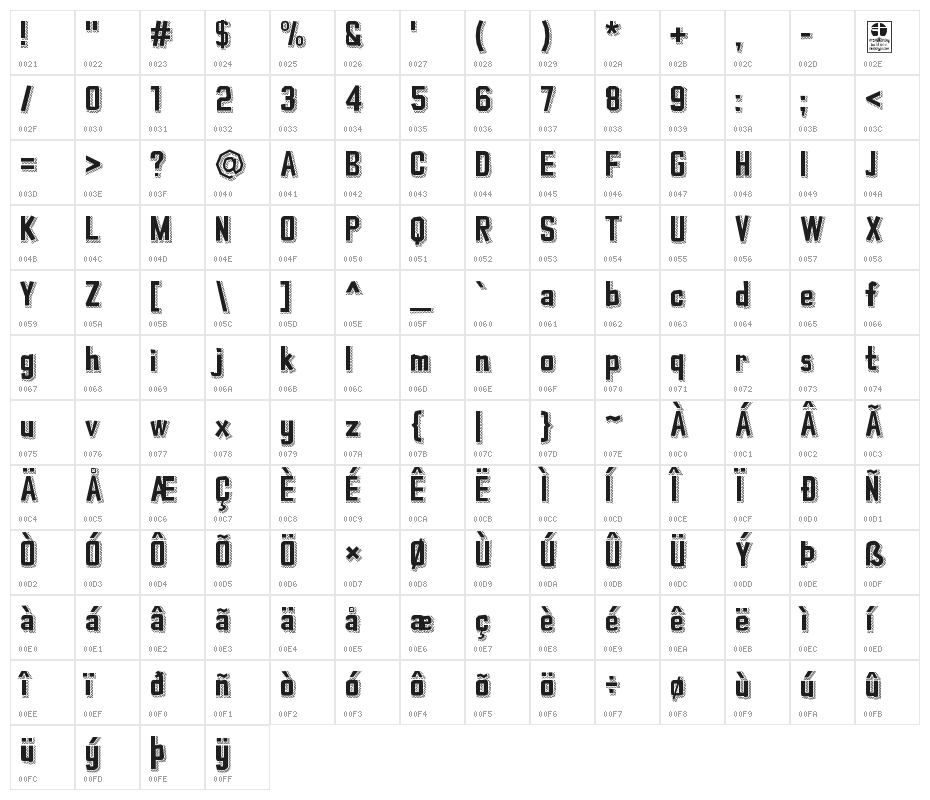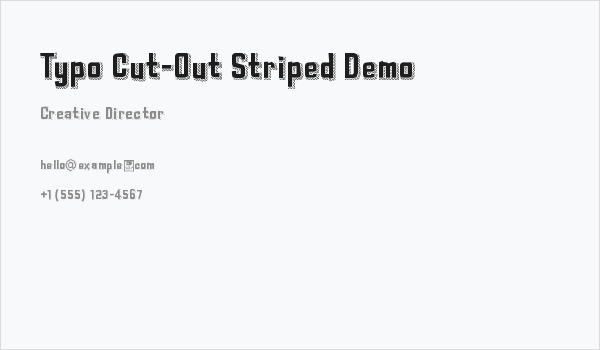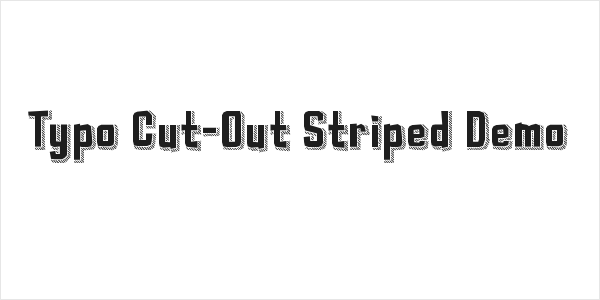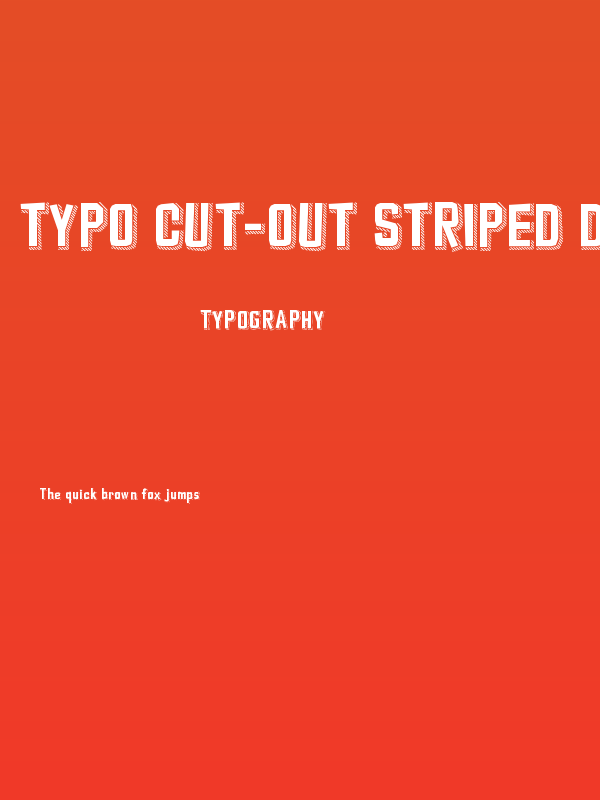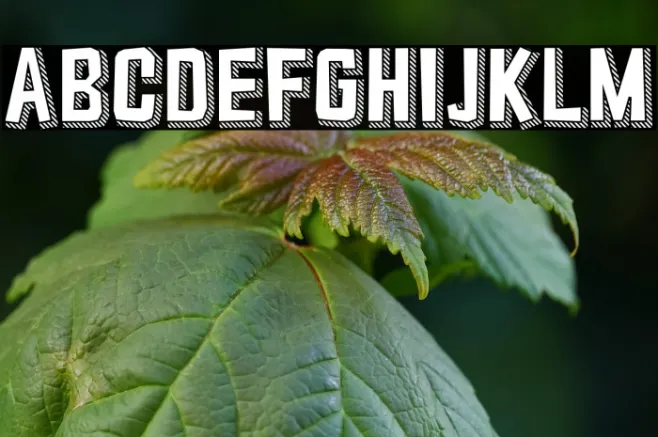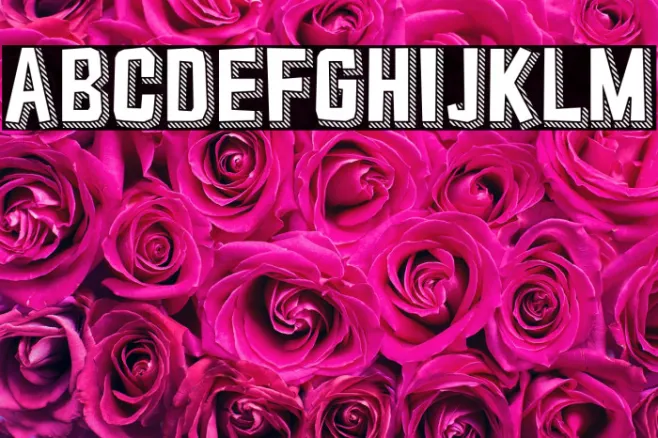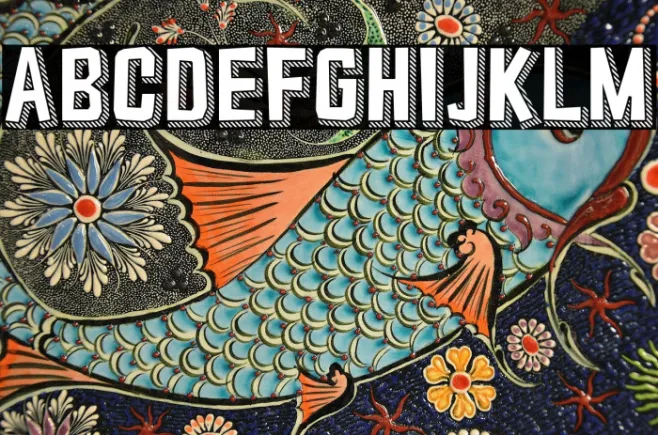
Typo Cut-Out Striped Demo Font
Typo Cut-Out Striped Demo Description
This font features a bold, cut-out style with a distinctive striped pattern that gives it a dynamic and eye-catching appearance. The uppercase and lowercase letters are designed with a consistent width, providing a uniform look across the alphabet. The numbers and special characters maintain the same bold and striped aesthetic, ensuring cohesion throughout. The font's playful and modern design makes it suitable for projects that require a standout, decorative typeface. Its unique style is perfect for capturing attention and adding a creative touch to any design.
| Proposed Projects | Ideal for posters, headlines, branding, and any project needing a bold, decorative touch. |